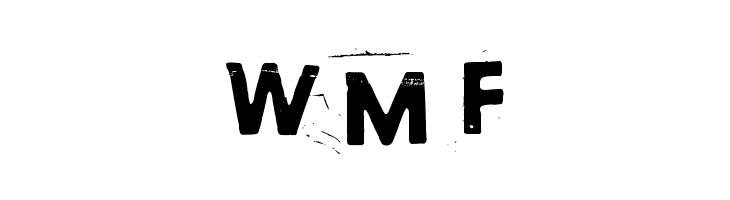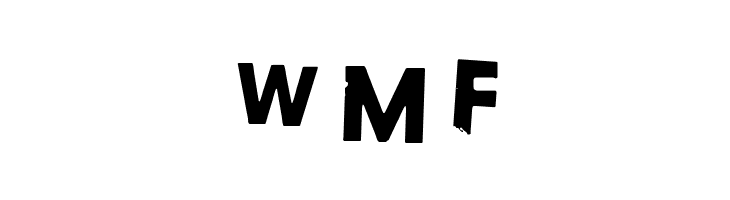
A hand-drawn, playful font with irregular strokes and a vintage-modern blend.
A casual, handwritten font with a playful and informal style.
A bold, distressed font with a grunge effect.
A bold, distressed font with a grunge, vintage style.
A textured, hand-drawn font with a rugged, chalk-like appearance.
A bold, distressed font with a grunge texture and rugged appearance.
A rough, hand-drawn font with a chalk-like texture and casual style.
A bold, expressive font with a hand-drawn, brush-like style.
A bold, brush-style font with dynamic, hand-drawn characters.
A bold, hand-drawn font with an expressive and artistic style.
A bold, distressed font with a rugged, weathered appearance.
A bold, distressed font with a grunge, textured style.
A hand-drawn, organic font with a playful and artistic style.
A bold, distressed font with a textured, vintage appearance.
A hand-drawn, rustic font with whimsical, uneven lines and organic character shapes.
A bold, distressed font with a grungy, edgy appearance.
A bold, hand-drawn font with a vintage, distressed appearance.
A bold, hand-drawn font with a rugged and organic style.
A playful, handwritten font with uneven strokes and a whimsical style.